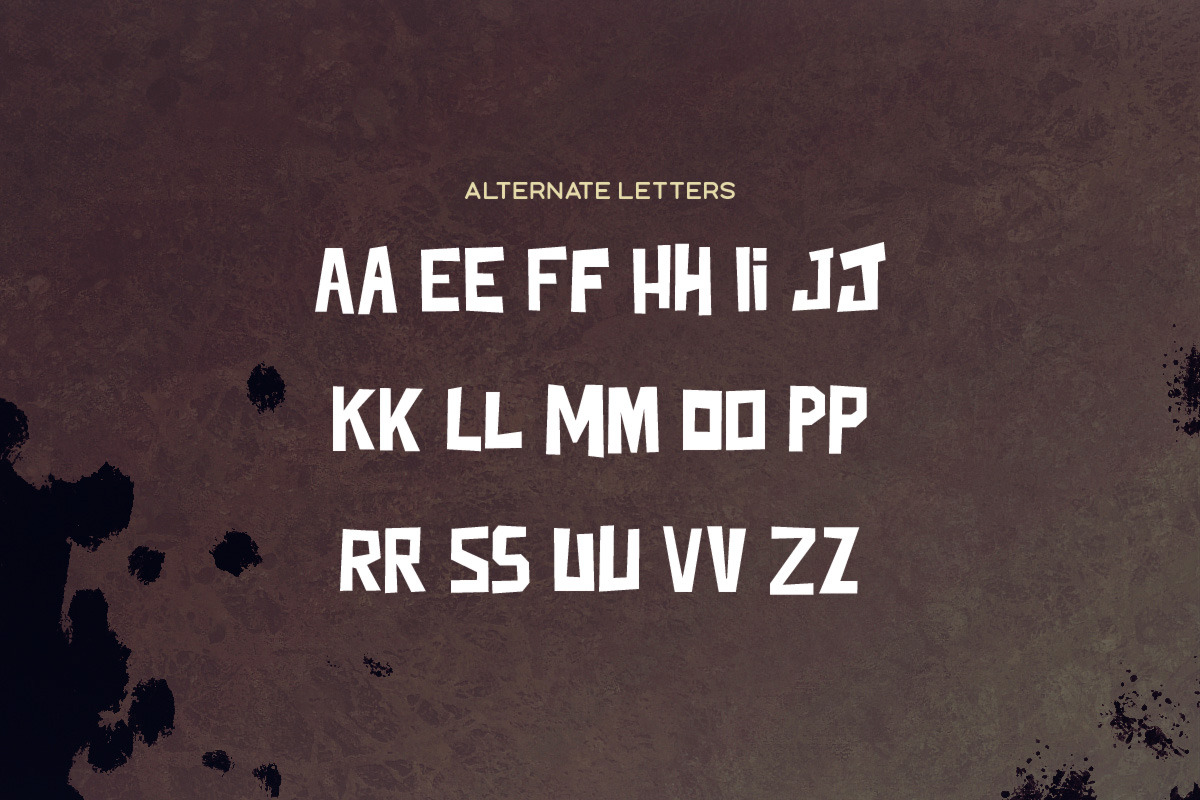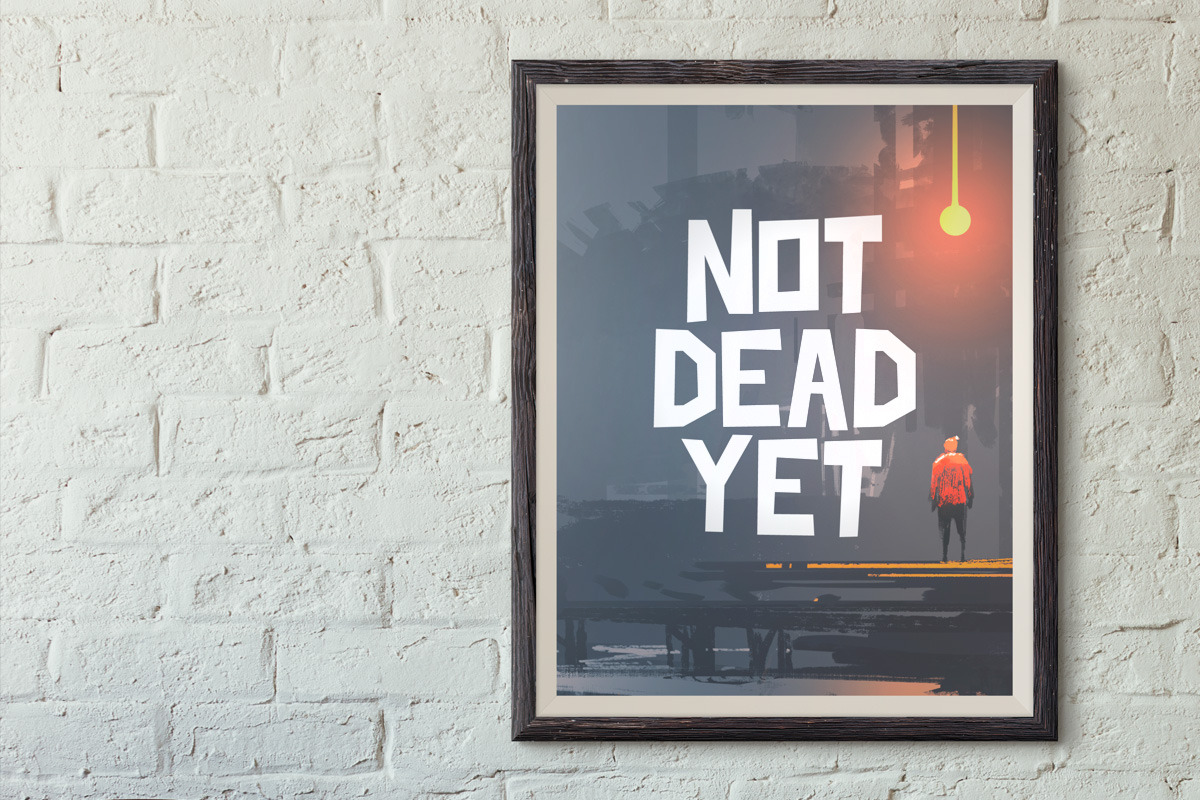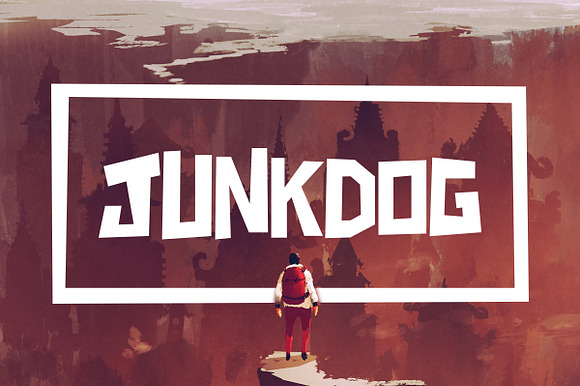
Junkdog Typeface
Junkdog is a blocky font with an attitude! It’s great for big titles and quotes, quite a few of the letters have alternate versions.
- The font includes uppercase multilingual letters, alternate letters, numbers and punctuation.
- It’s great for big titles and quotes, quite a few of the letters have alternate versions.
- The font includes uppercase multilingual letters, alternate letters, numbers and punctuation.
Why Junkdog Typeface is worth a look